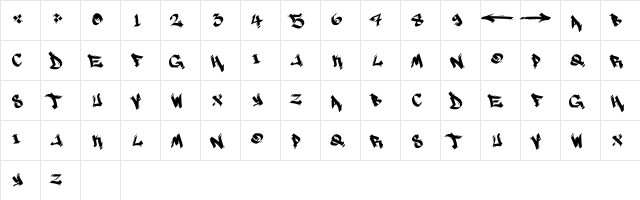
MARSNEVENEKSK Regular Font Preview
MARSNEVENEKSK Regular
MARSNEVENEKSK Regular Font Details
Design Context for MARSNEVENEKSK Typeface
MARSNEVENEKSK is a composed and adaptable typeface that performs quietly and consistently across a wide range of design contexts.